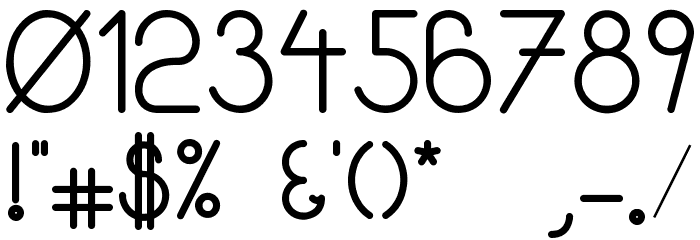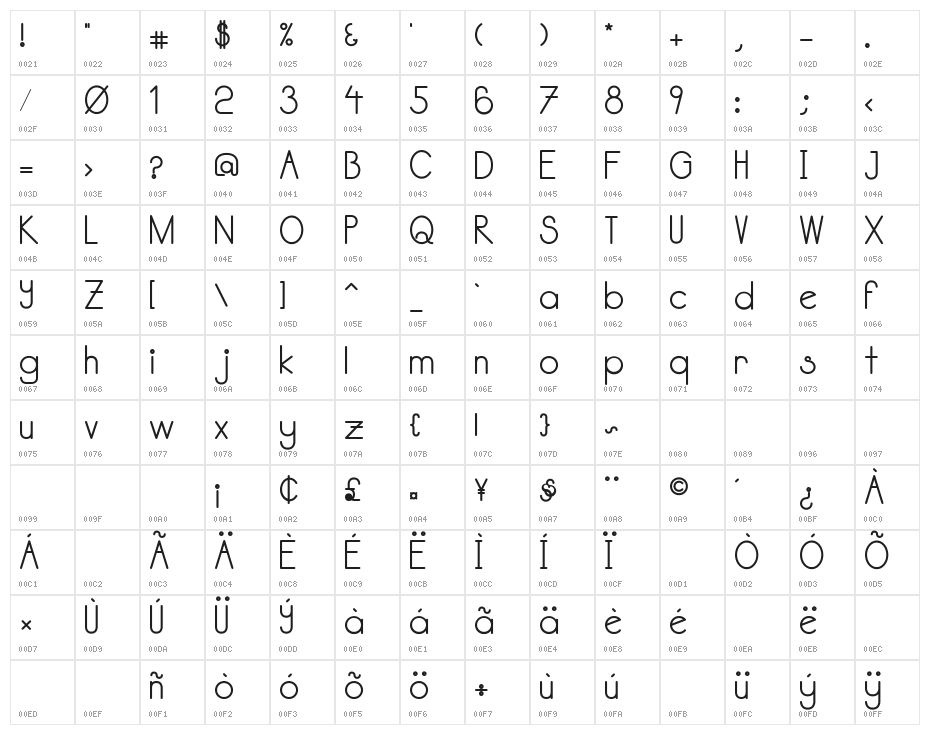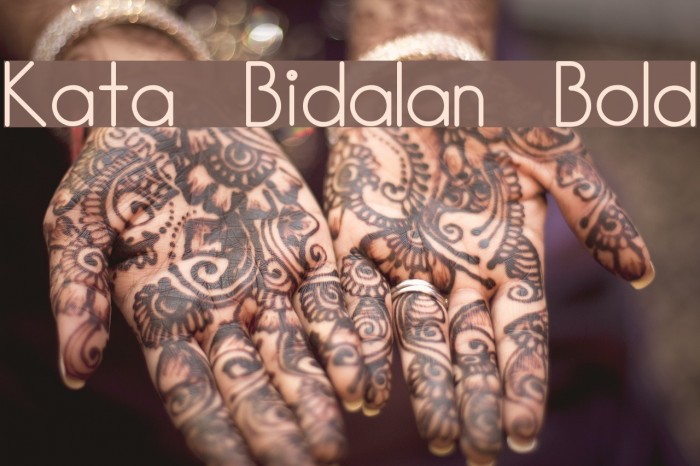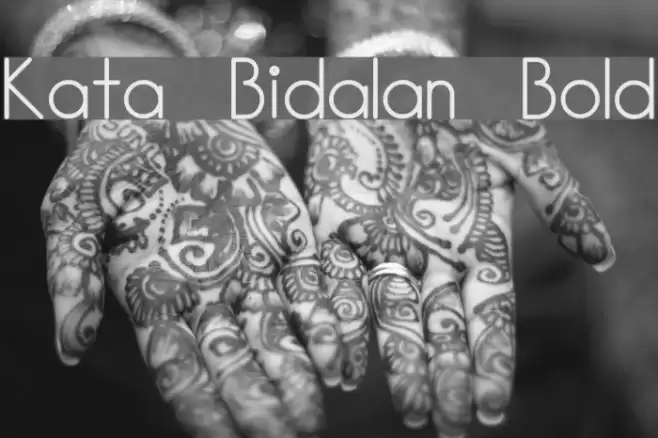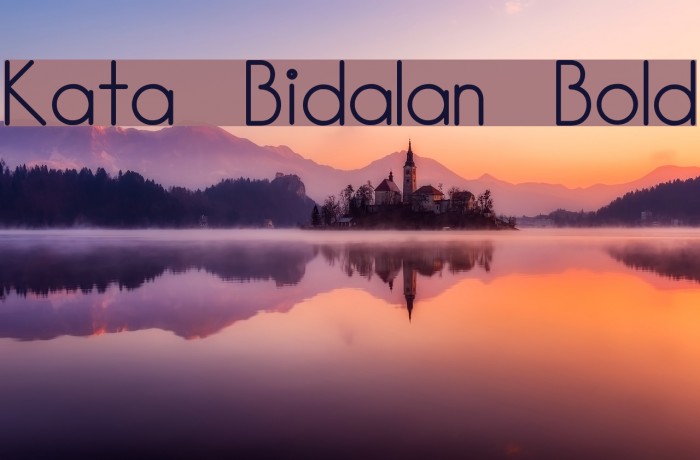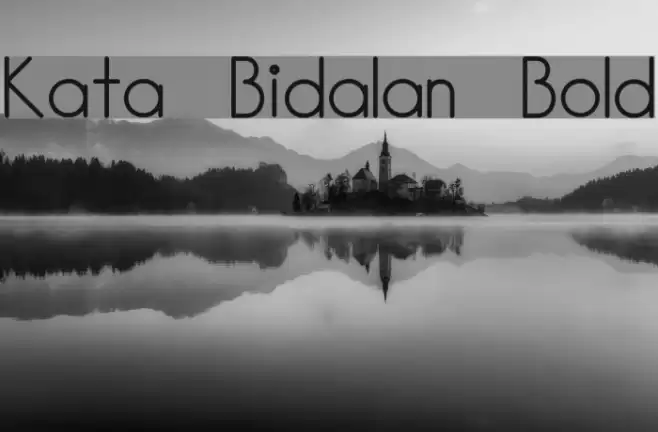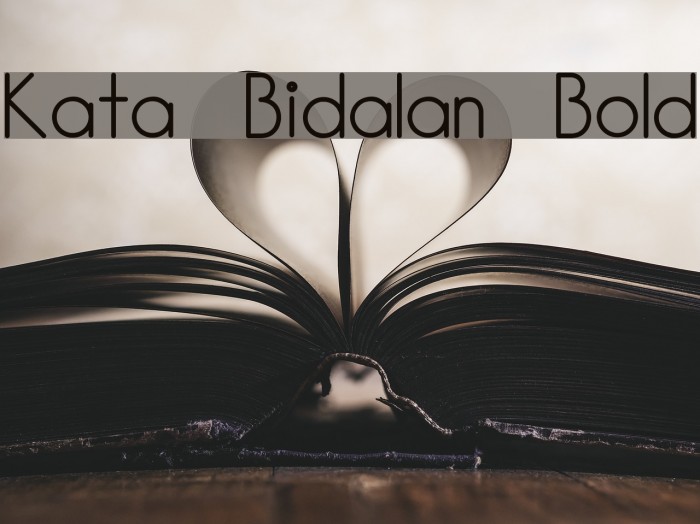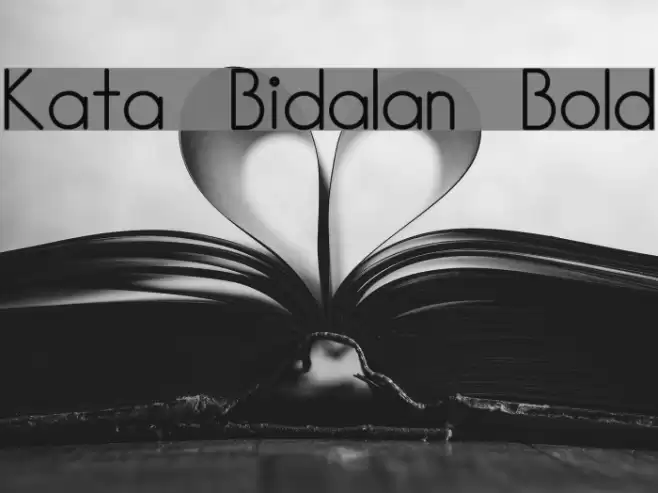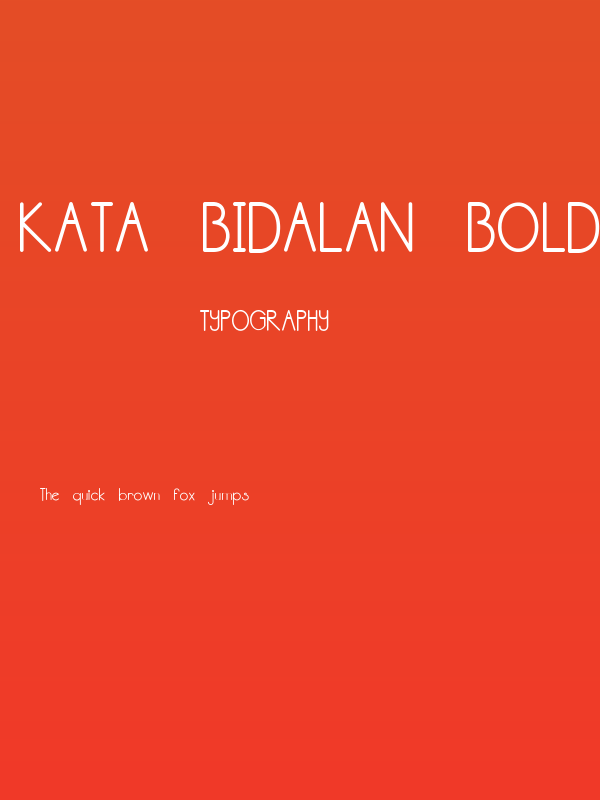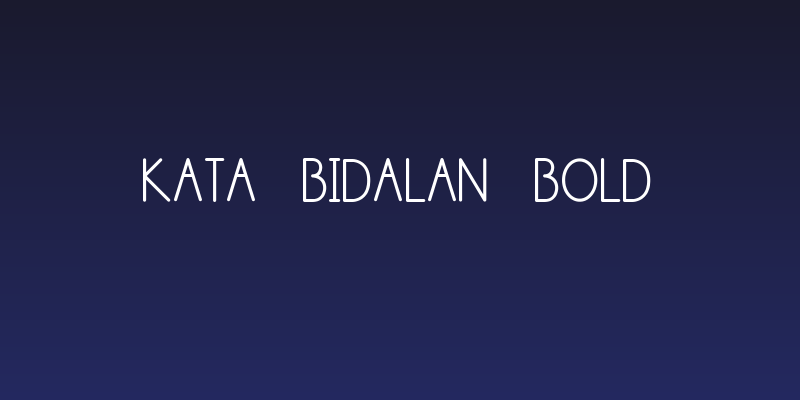
Kata Bidalan Bold Font
Kata Bidalan Bold Description
This font features a clean and modern design with rounded edges and a uniform stroke width, giving it a friendly and approachable appearance. The characters are well-proportioned, with a consistent height and width that ensures readability. The uppercase and lowercase letters maintain a harmonious balance, while the numerals and special characters are distinct and easily recognizable. The overall style is simple yet elegant, making it versatile for various design applications.
| Proposed Projects | Ideal for branding, packaging, web design, and advertising where a modern and approachable look is desired. |